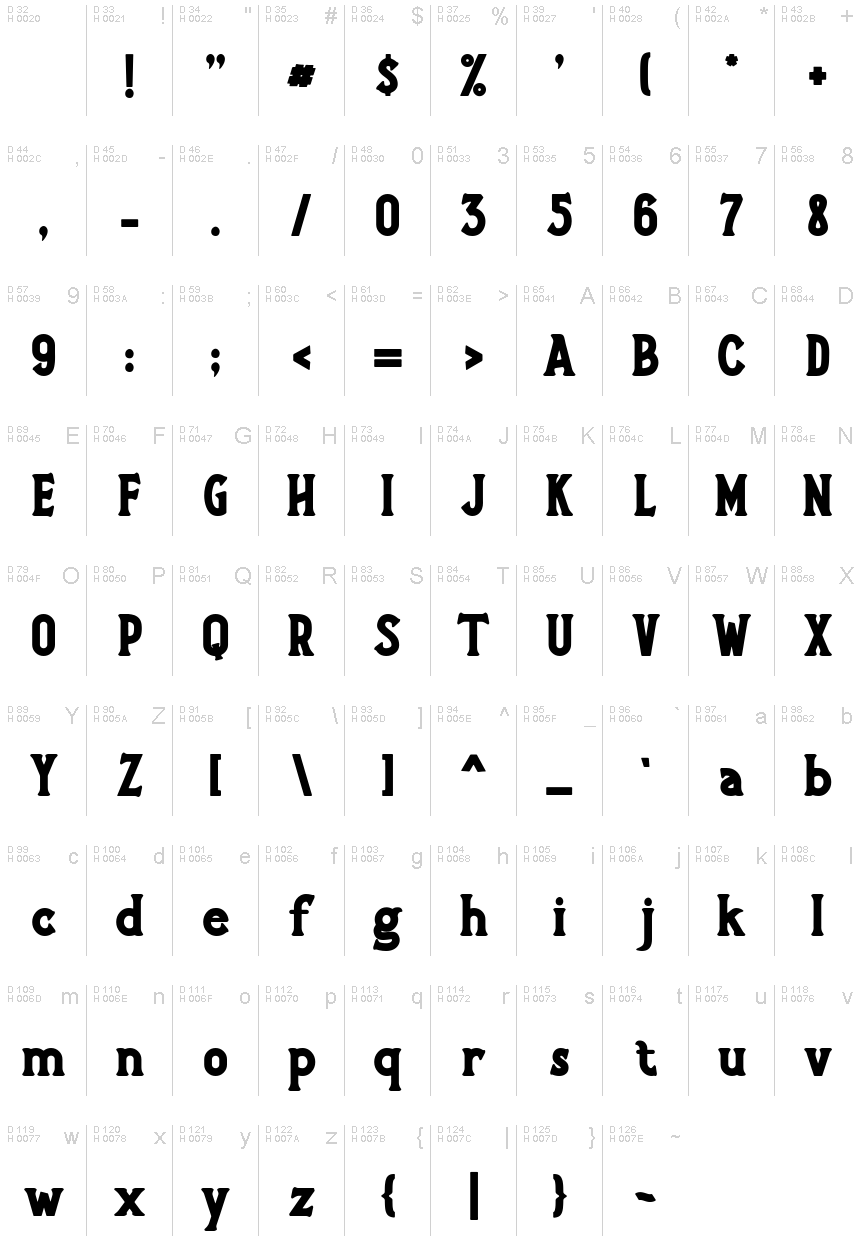
Berlingsdemo
Berlings is a bold, display typeface designed by Benawa Type. This striking font exudes a sense of strength and authority, with its thick, confident strokes and sharp, angular terminals. The dramatic, attention-grabbing letterforms evoke a sense of elegance and sophistication, making Berlings an excellent choice for headlines, logos, and other high-impact design elements.
Berlings' distinctive character lends itself well to a variety of design contexts, from editorial layouts and branding materials to packaging and signage. Its bold presence ensures it stands out in any composition, making it a versatile tool for designers seeking to create impactful, visually striking designs that command the viewer's attention.